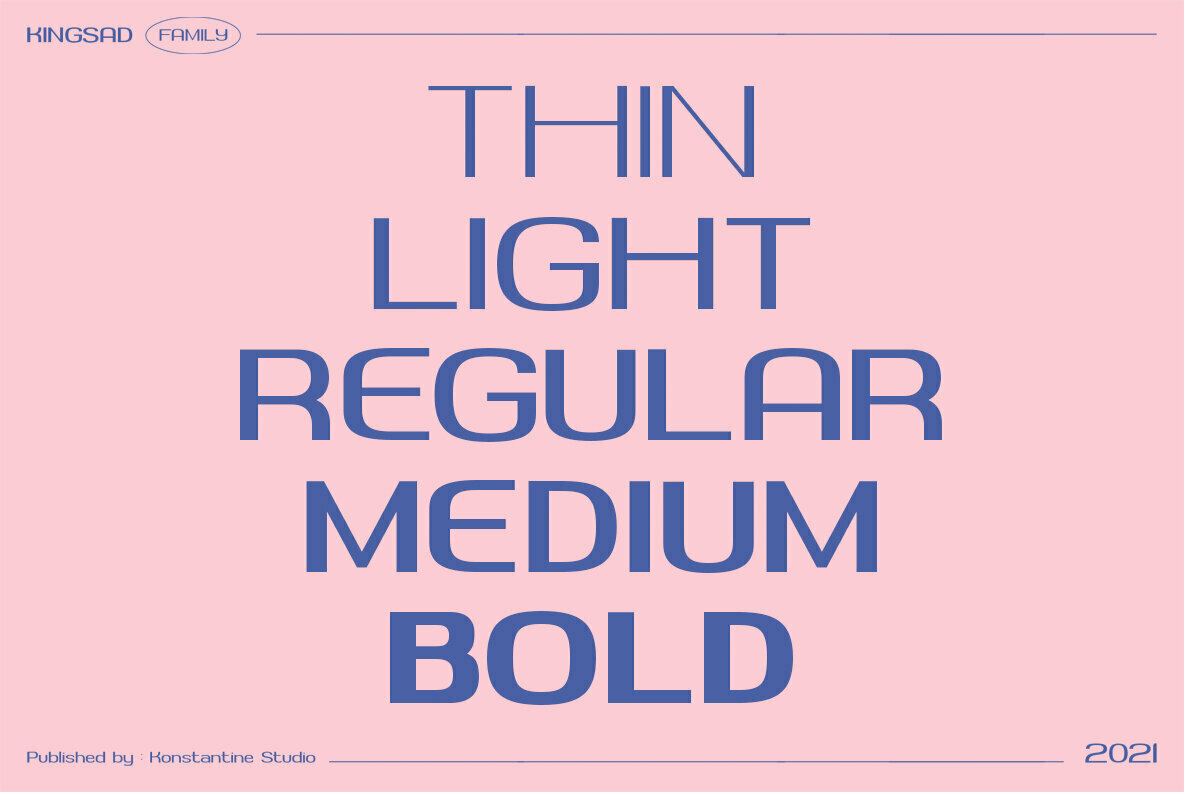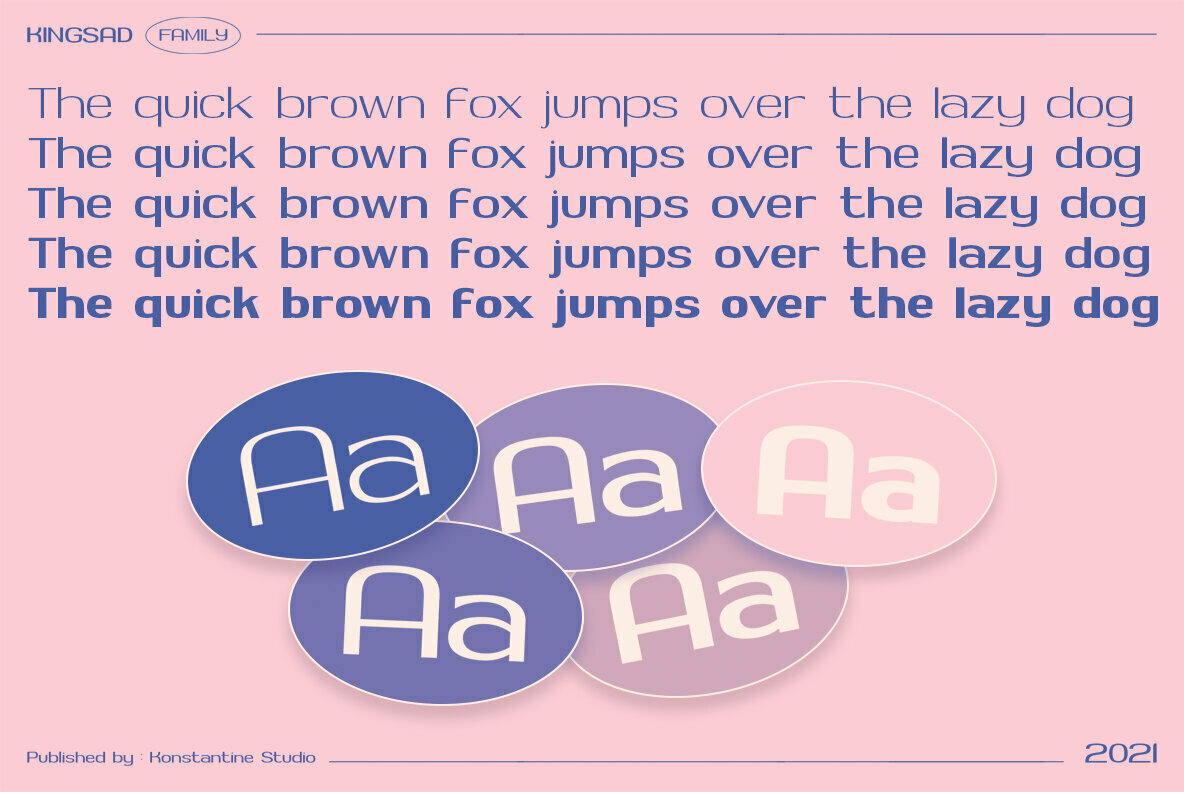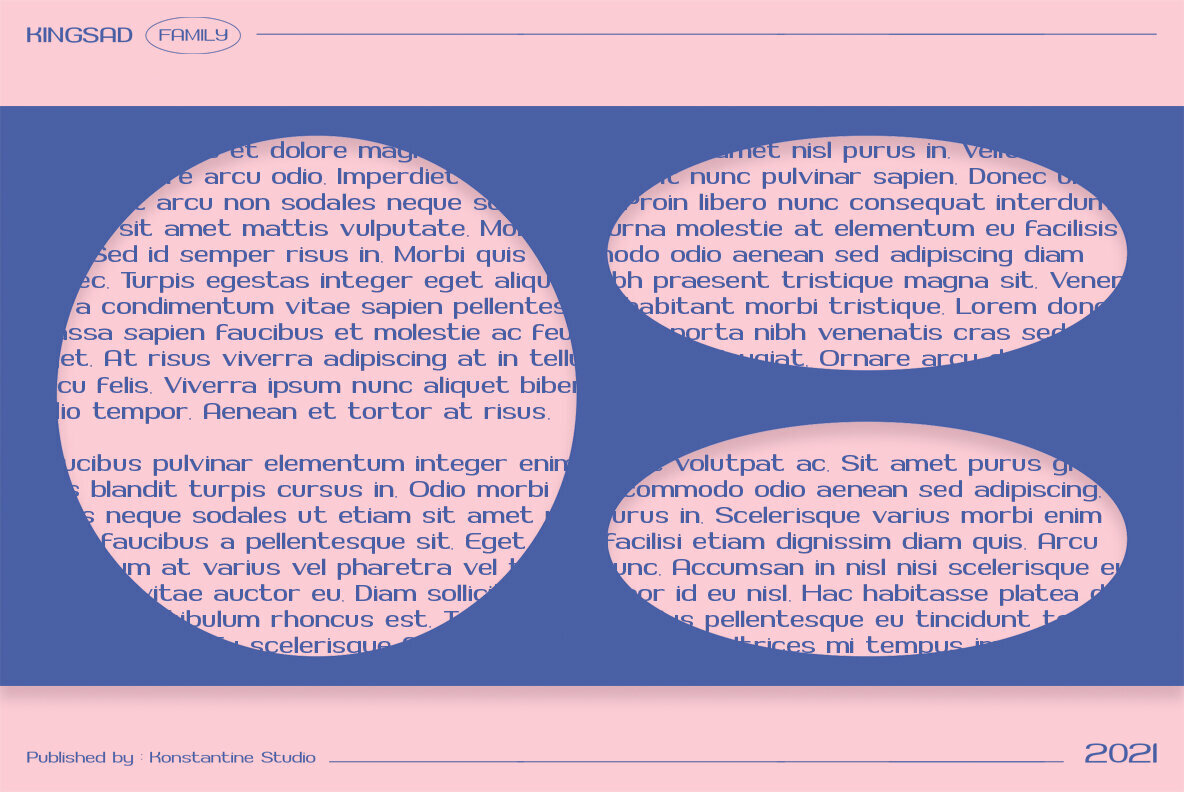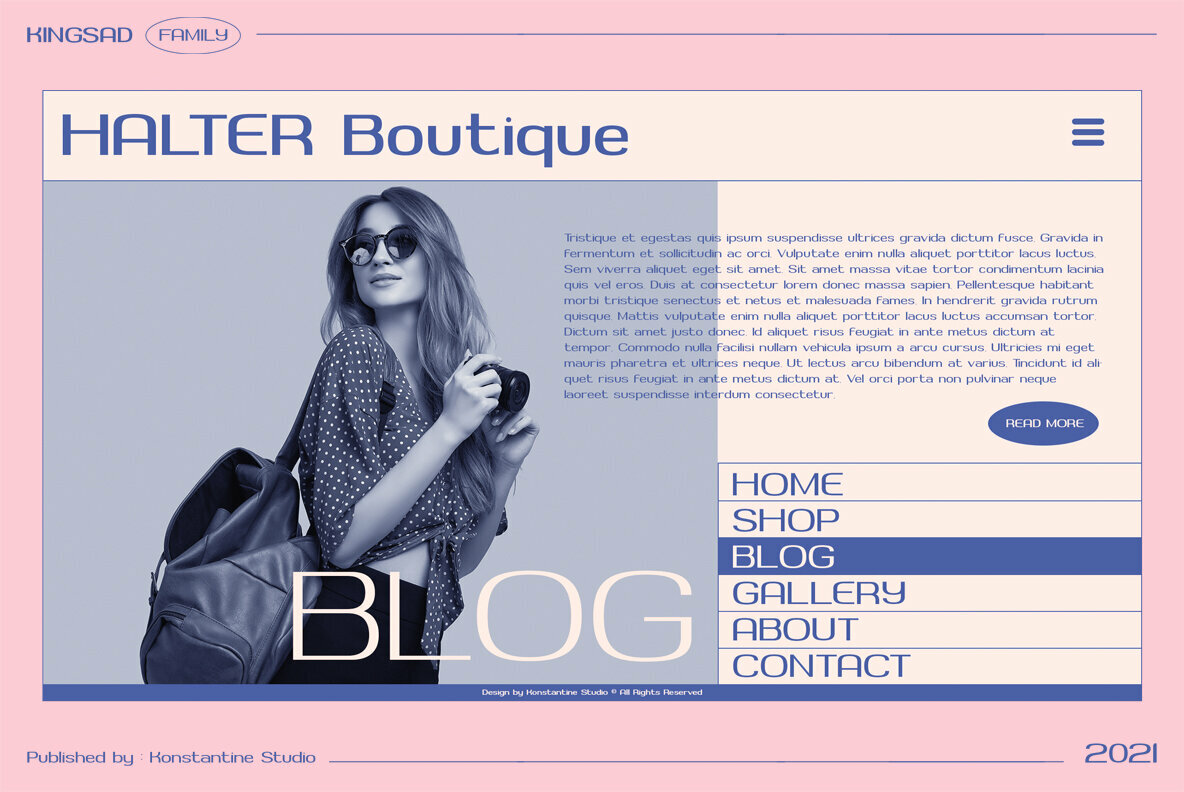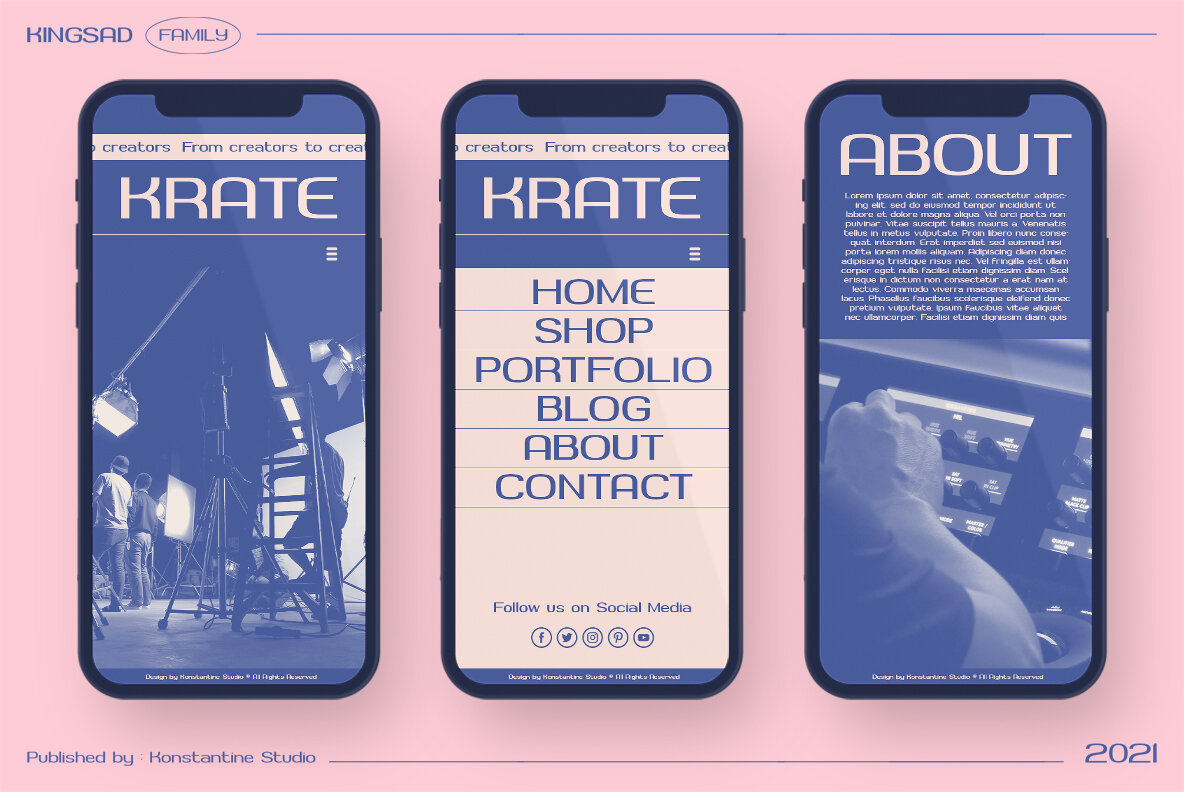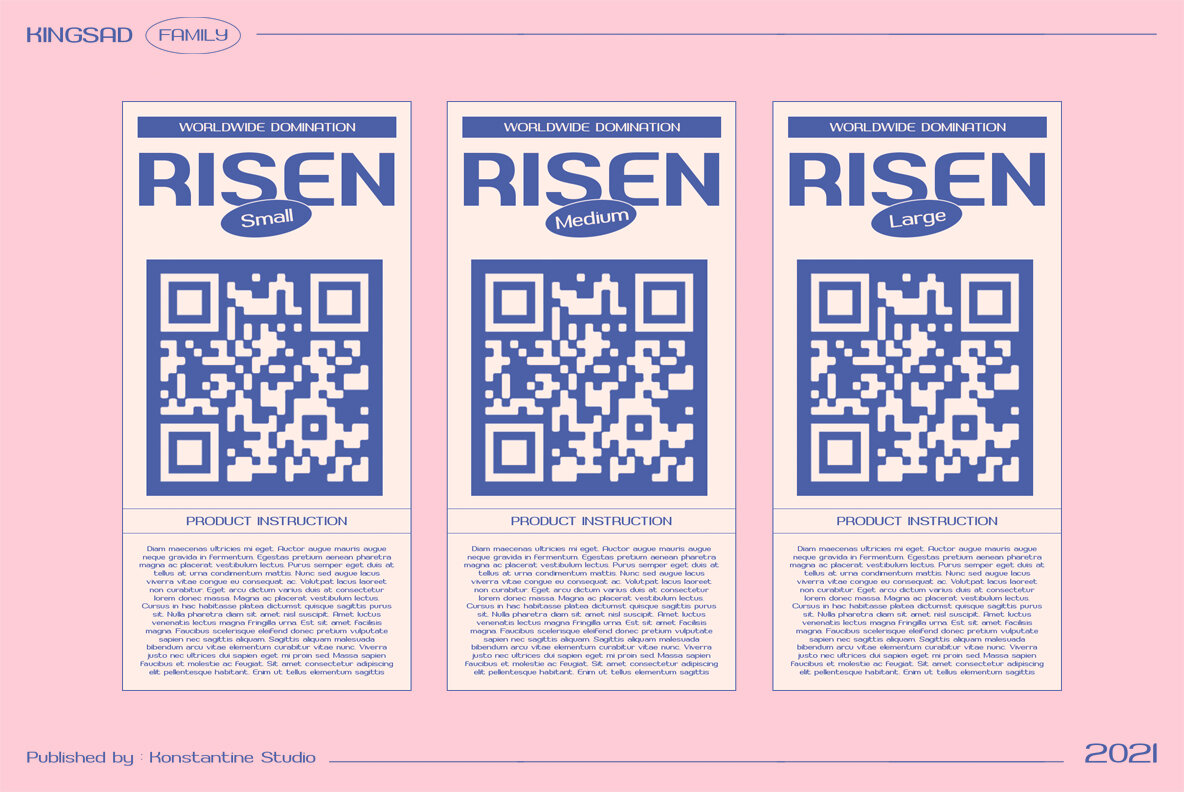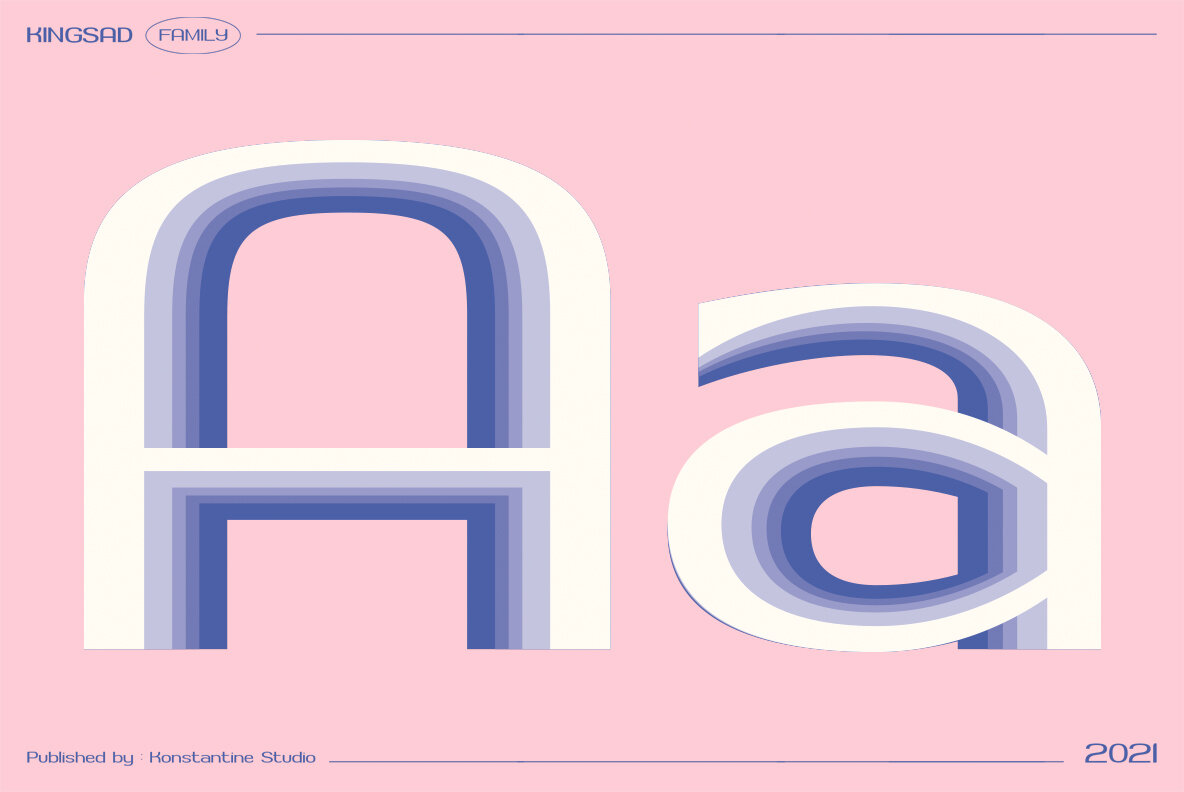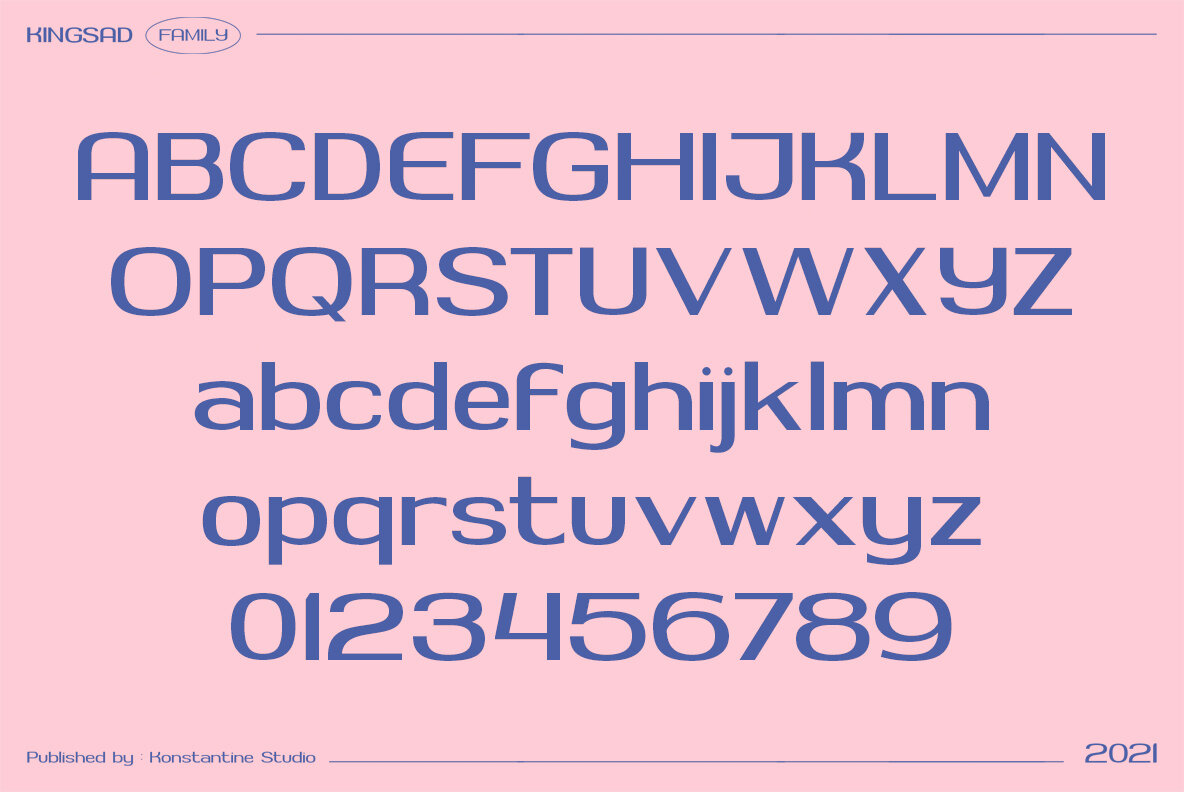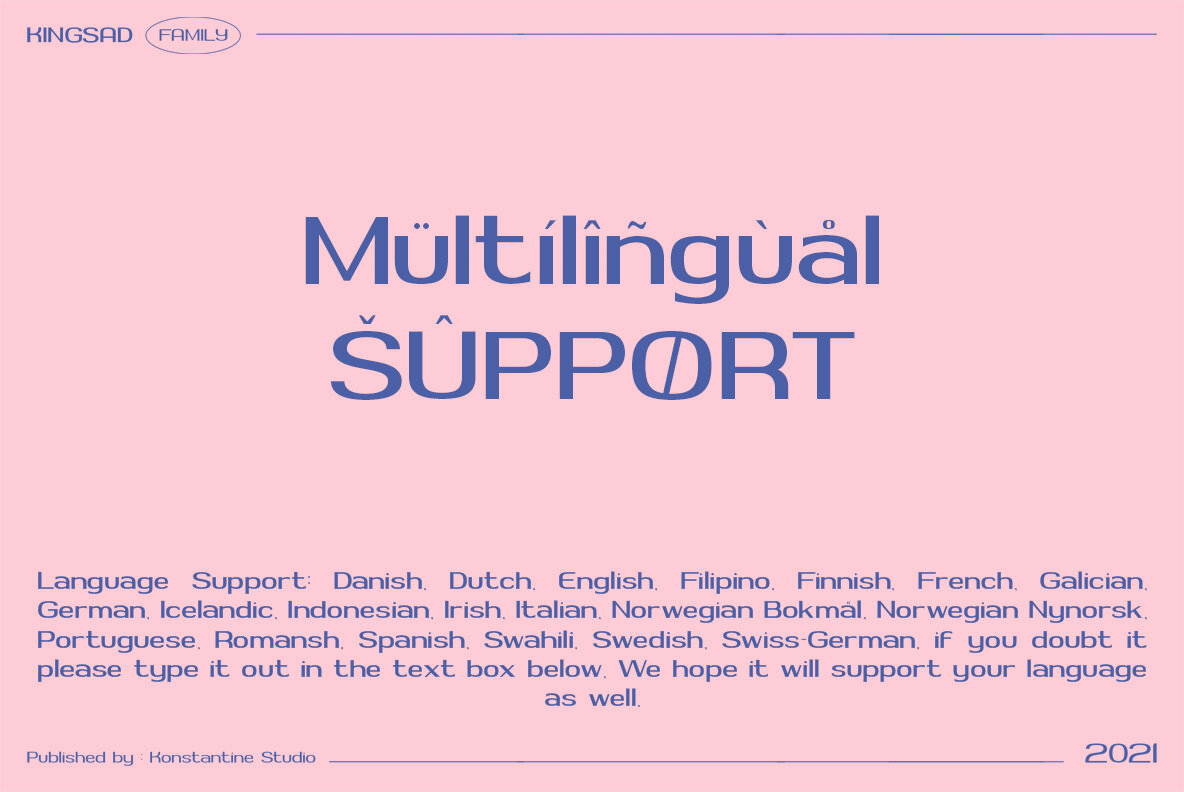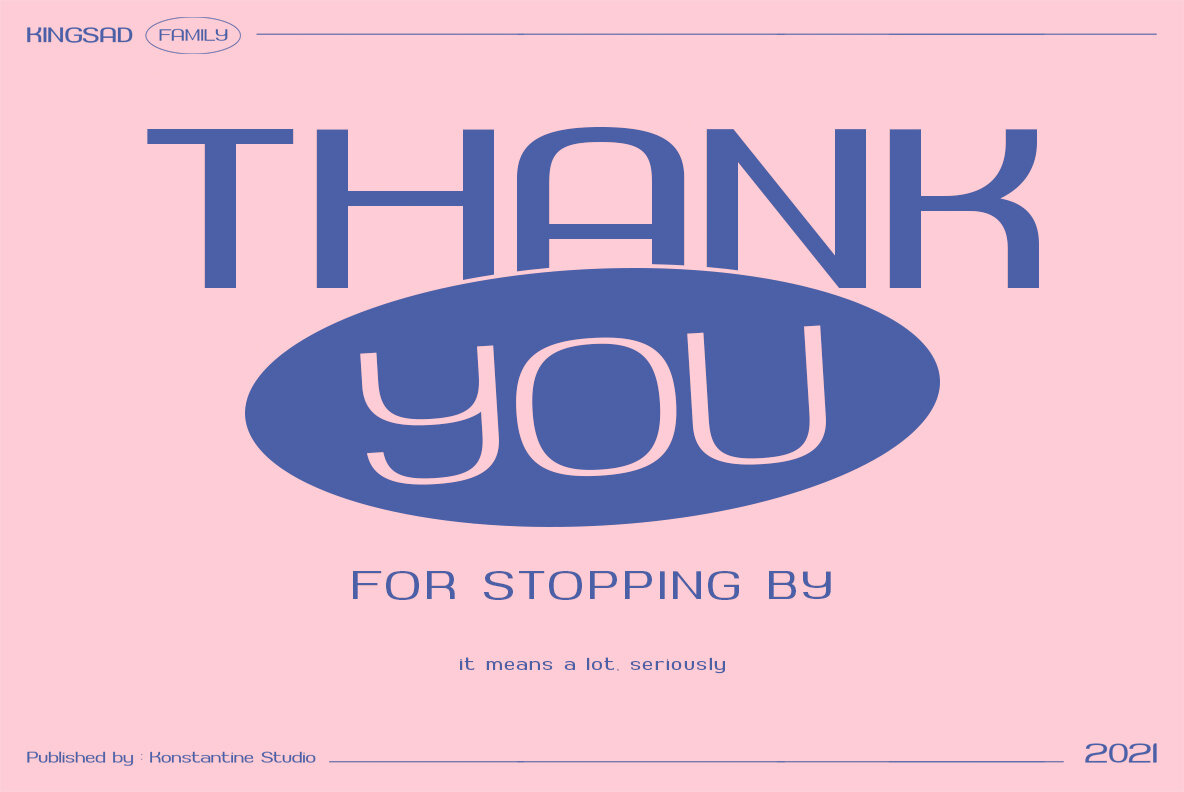
Kingsad is inspired by the contemporary trends of visual design nowadays. Combining the modern and elegant vibes with the breakthrough of typography hierarchy, but still holding on to the function and voices of the sans-serif core.
Contains 5 styles in a family from thin to bold to expand the versatility usage. Perfectly fit for your logo and modern visual branding touch. In short, Kingsad is an easy font to go with.